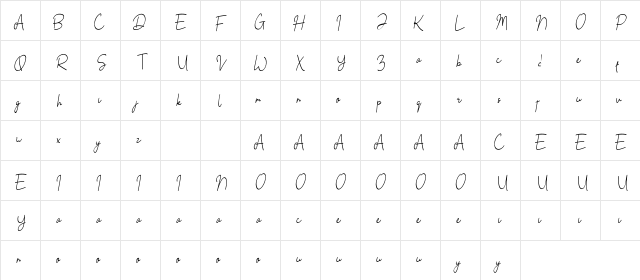
Black Pink Cursive Regular
Design Context for Black Pink Cursive Typeface
Black Pink Cursive brings a calligraphic fluidity to the page — its connecting strokes and expressive curves give it an unmistakably human quality.
Font Pairing: Combine Black Pink Cursive with a simple geometric sans for maximum contrast — the tension between flowing curves and clean structure is a classic typographic pairing.
Pro Tip: Pair Black Pink Cursive with a clean sans-serif for supporting text. The contrast between fluid script and geometric structure creates an elegant typographic hierarchy.